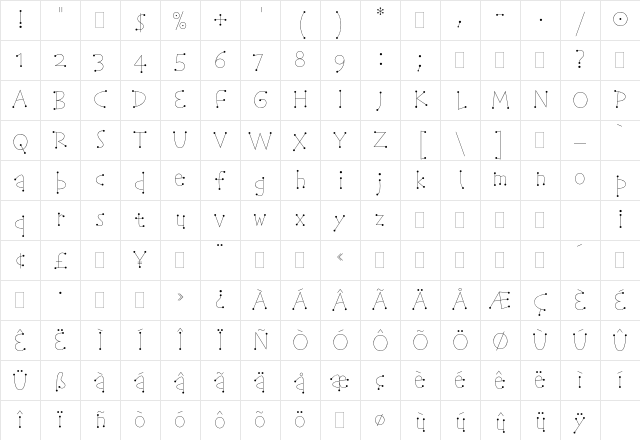
Telegram Plain
Design Context for Telegram
Telegram is a composed and adaptable typeface that performs quietly and consistently across a wide range of design contexts.
Pro Tip: Use Telegram in both headline and body roles to test its range before committing to a single application.